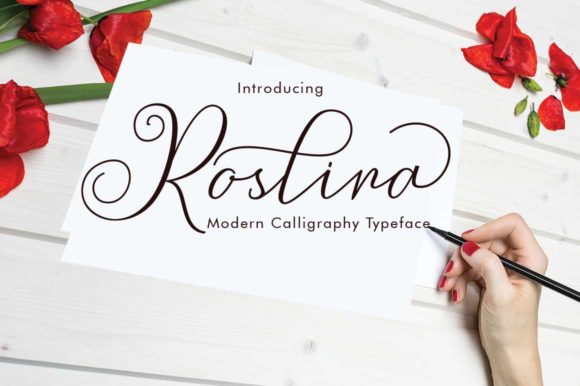
Roslina Font
About Roslina Font
Roslina is a particularly romantic script with bold swashes and ligatures. It will add a delicate charm to any design idea.